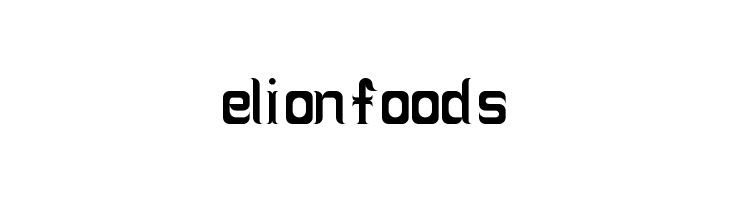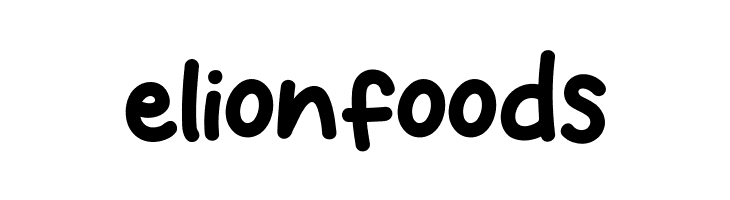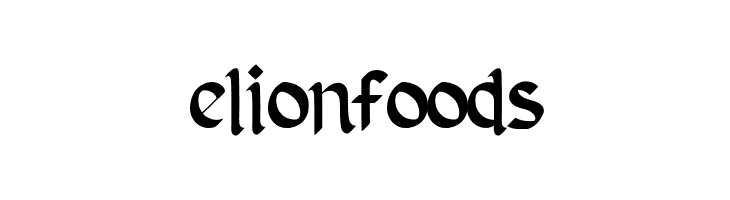
A bold, italic font with a dynamic and modern style.
An ornate and decorative script font with intricate swirls and flourishes.
A bold, gothic-inspired font with sharp serifs and a medieval aesthetic.
A playful, rounded font with a hand-drawn, whimsical style.
A playful, handwritten font with dynamic strokes and a casual style.
A flowing, cursive font with elegant, connected strokes.
A modern, angular font with a futuristic and bold design.
A modern, ultra-condensed font with tall, narrow letterforms and minimal stroke contrast.
A graceful and elegant script font with flowing, intricate loops and swashes.
A calligraphy-inspired typeface with elegant, flowing characters and sharp angles.
A bold, angular font with a strong slant, exuding energy and modernity.
A bold, dramatic serif font with angular serifs and elegant flourishes.
A decorative script font with elegant loops and swirls.
A bold, dynamic font with a playful, modern twist.
A bold, playful font with rounded, bubbly characters ideal for fun and whimsical designs.
A playful, bold font with exaggerated curves and whimsical shapes.
An elegant italic font with high contrast and flowing cursive style.
A modern, geometric sans-serif font with clean lines and uniform stroke width.
A modern stencil font with bold, structured uppercase and elegant lowercase letters.
A modern stencil-style font with a blend of bold uppercase and cursive lowercase letters.
A modern, italic sans-serif font with balanced proportions and a dynamic style.